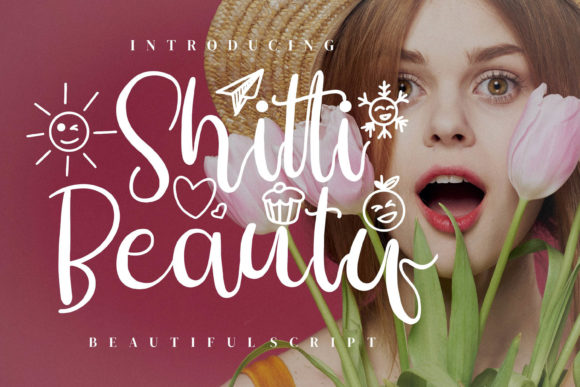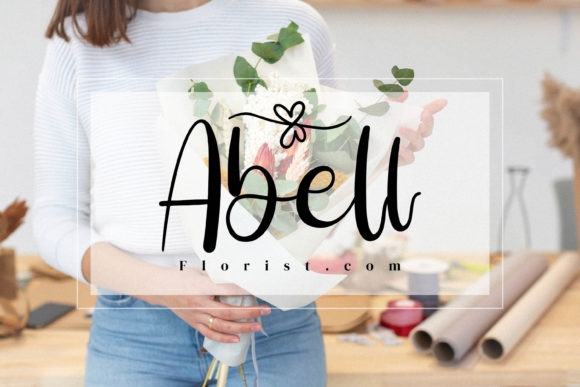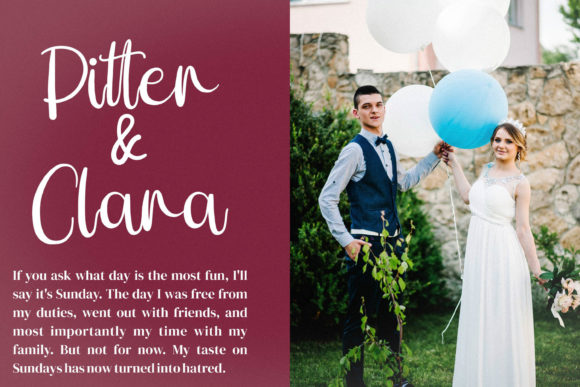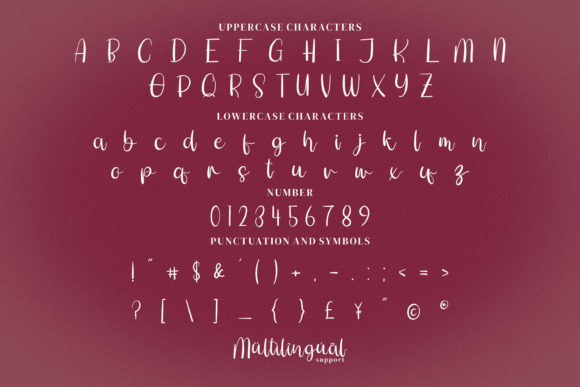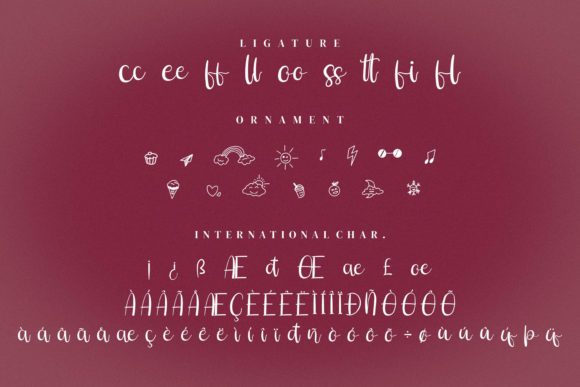
Shitti Beauty Font
About Shitti Beauty Font
Shitti Beauty is a unique and elegant handwritten font. It looks beautiful on a variety of designs requiring a personalized style, such as wedding invitations, thank you cards, weddings, greeting cards, logos and so on.